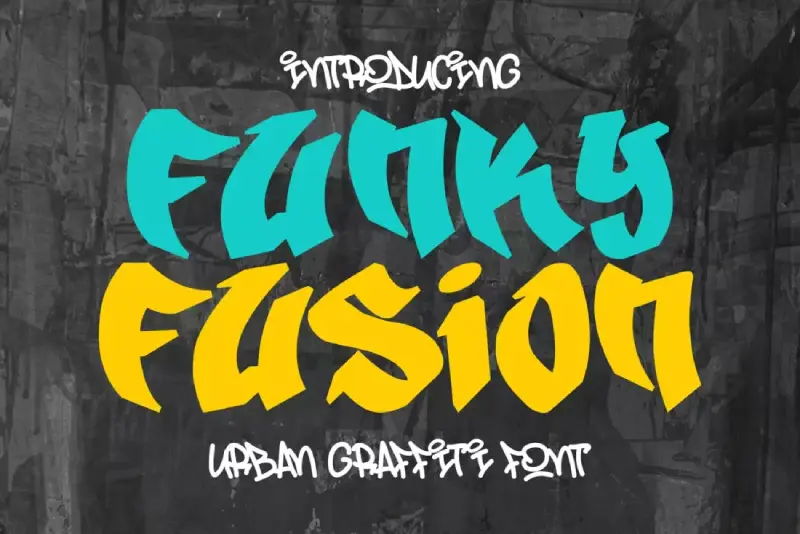
When designers search for the Funky Fusion font, they often discover something surprising – there are actually two completely different typefaces sharing this electrifying name. Far from being confusing, this creative coincidence offers designers twice the inspiration for their projects. Whether you need psychedelic retro vibes or urban street energy, there’s a Funky Fusion font that’s perfect for your vision.
Funky Fusion Font
Twice the Inspiration for Your Bold Designs.
Funky Fusion
TF Funky Fusion
Funky Fusion
Step back in time with the psychedelic version of Funky Fusion, created by Restu Angga Romansah and Miftahul Habib at Teenage Foundry. This font captures the free-spirited energy of the 1960s and 70s with its swirling letterforms and playful curves. It’s like having a Woodstock poster in typeface form – perfect for projects that need a dose of vintage charm and artistic nostalgia.
The psychedelic Funky Fusion shines brightest in music festival posters, vintage-inspired branding, album art, and any project that needs to transport viewers back to the age of tie-dye and rock ‘n’ roll. For the best retro effect, pair it with muted vintage colors like mustard yellow, avocado green, and sunset orange.
The main purpose of the Funky Fusion font family is to empower creatives with high-impact, expressive typography that delivers instant visual energy across posters, branding, digital media, and more. Whether you’re channeling the psychedelic soul of the 60s or the raw energy of modern street art, Funky Fusion gives you the perfect tool to make your design stand out.